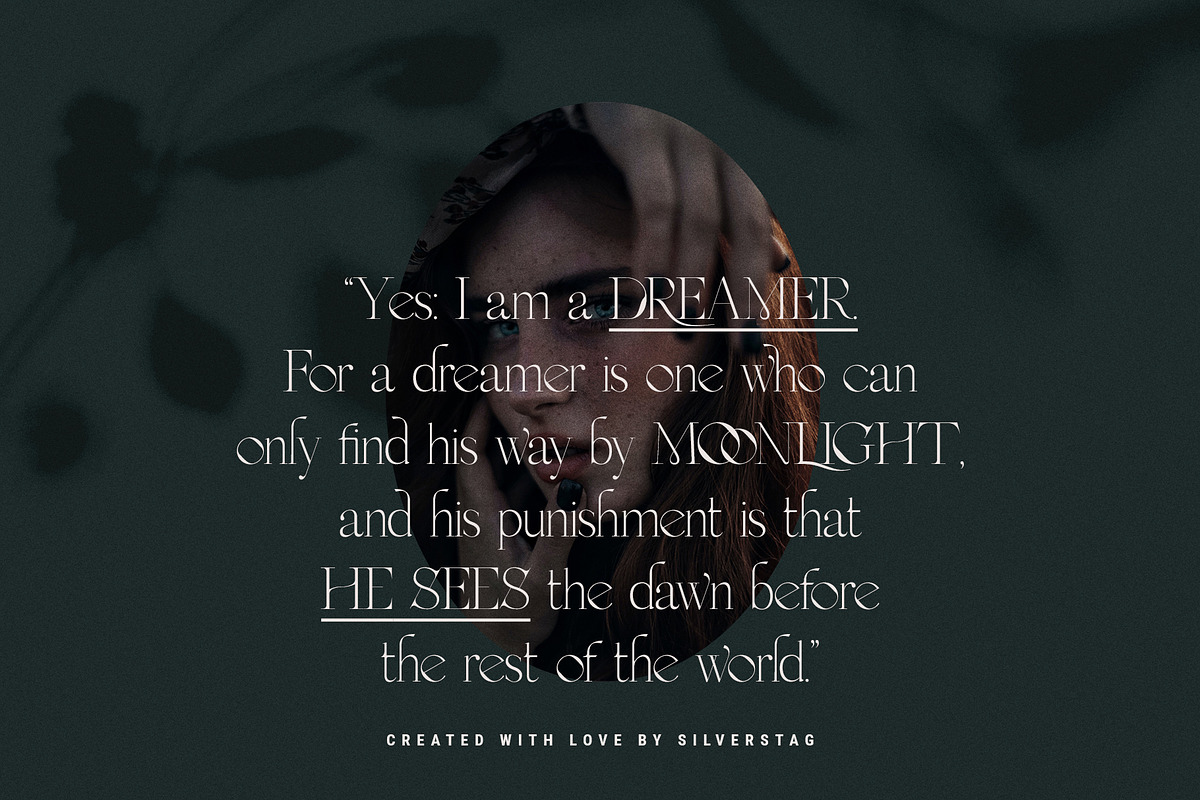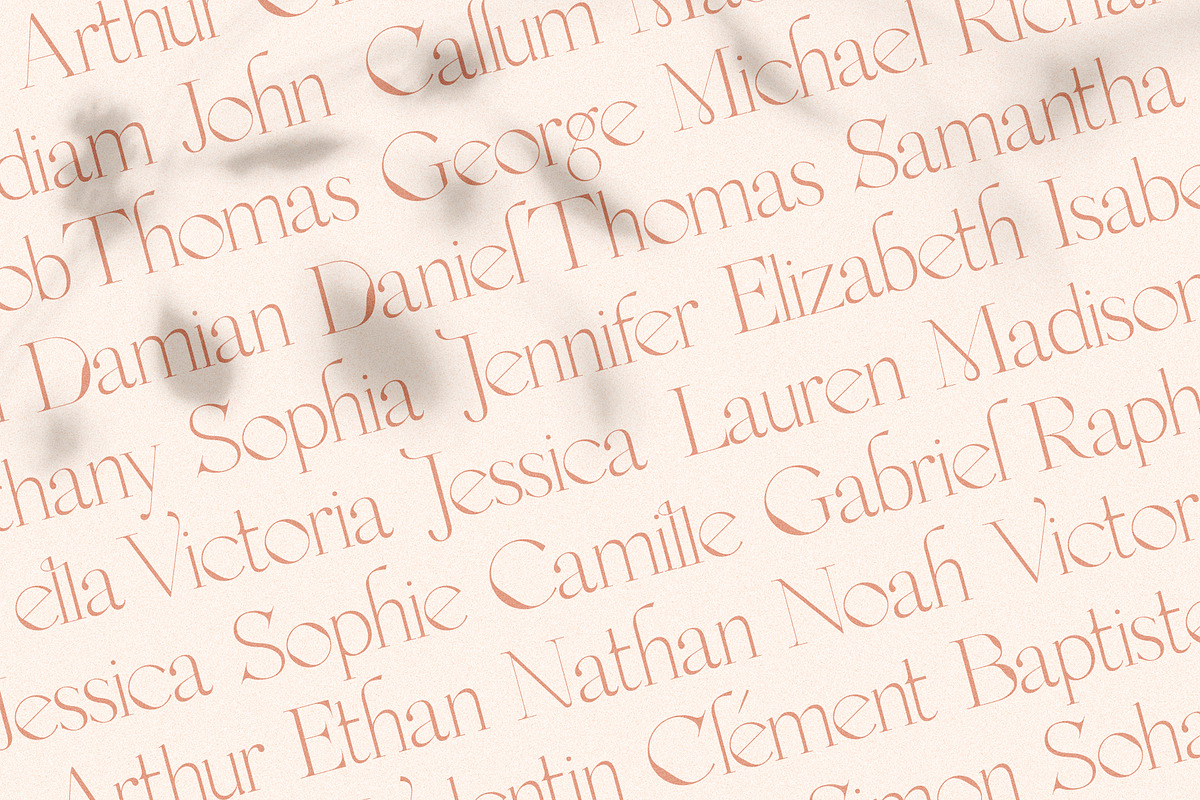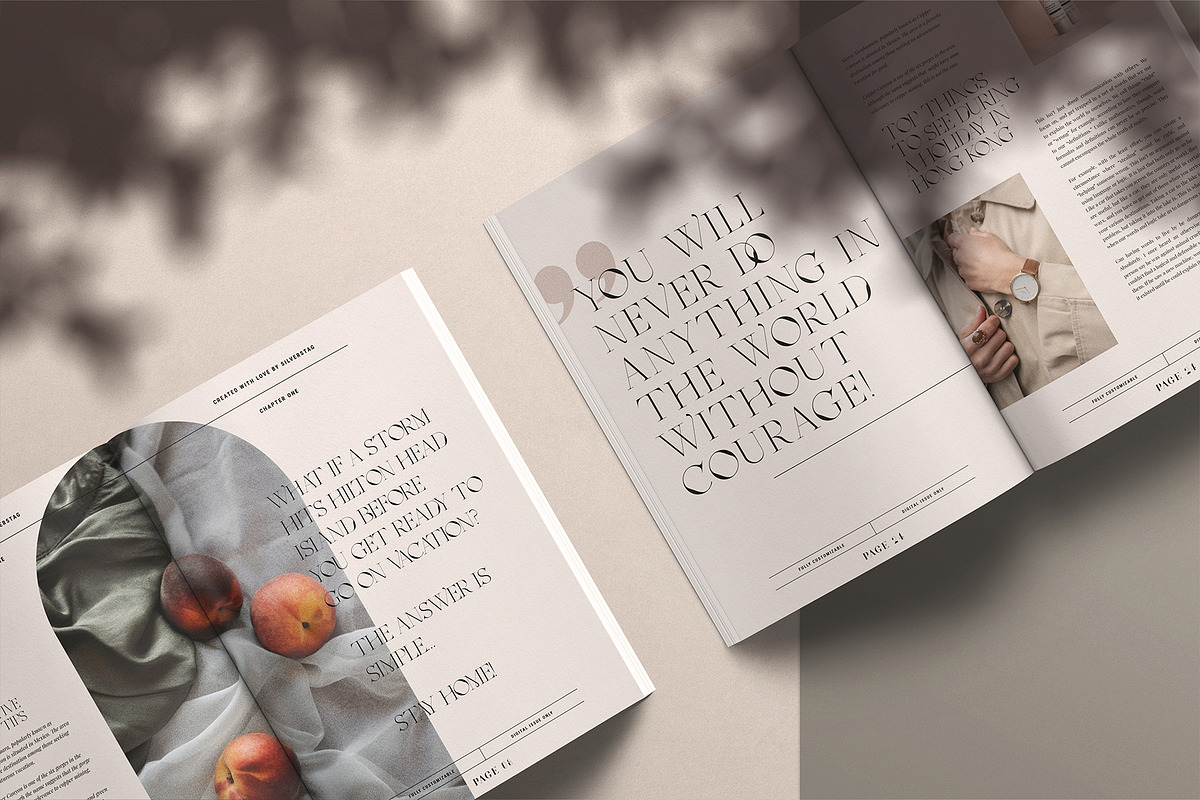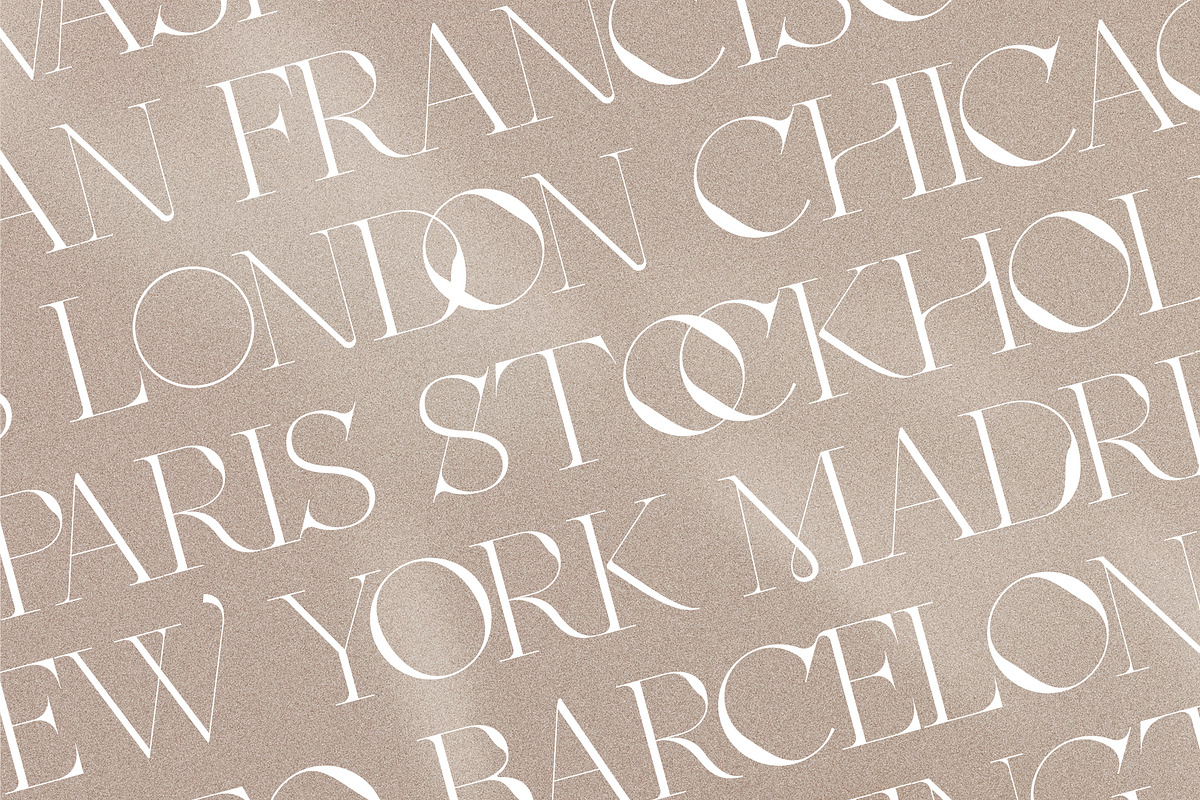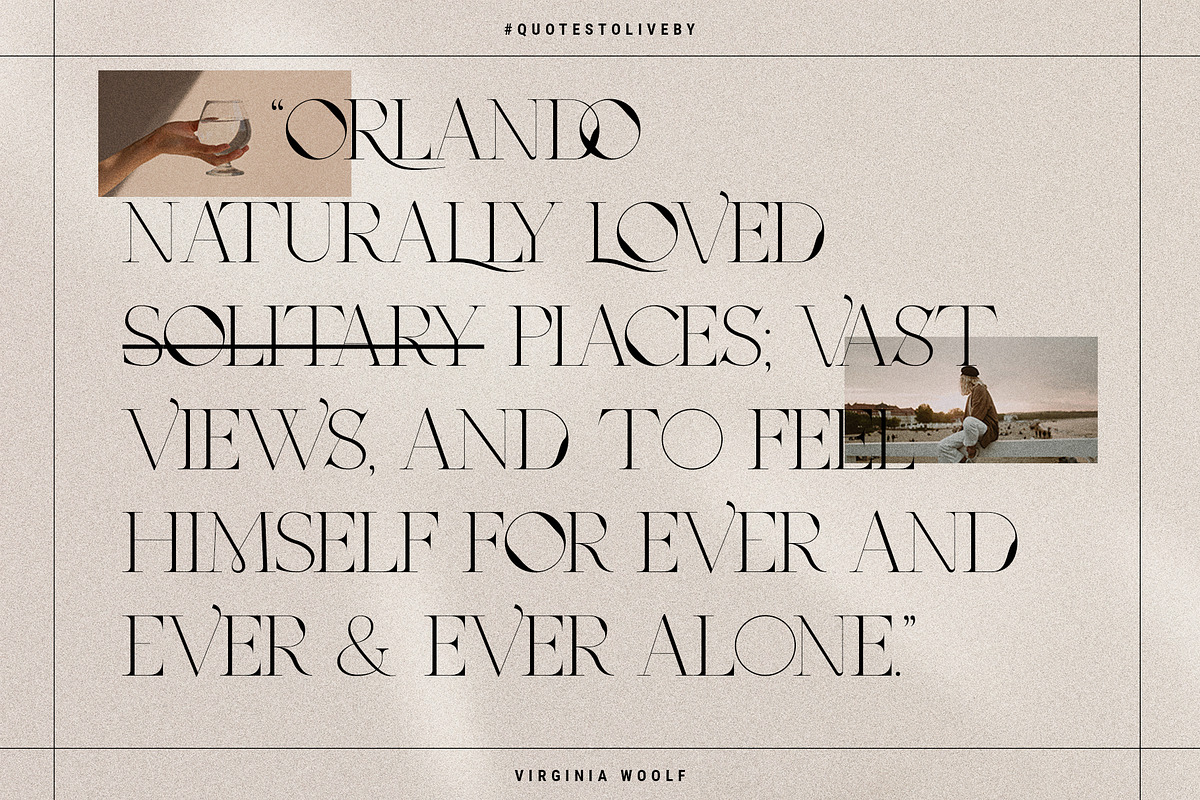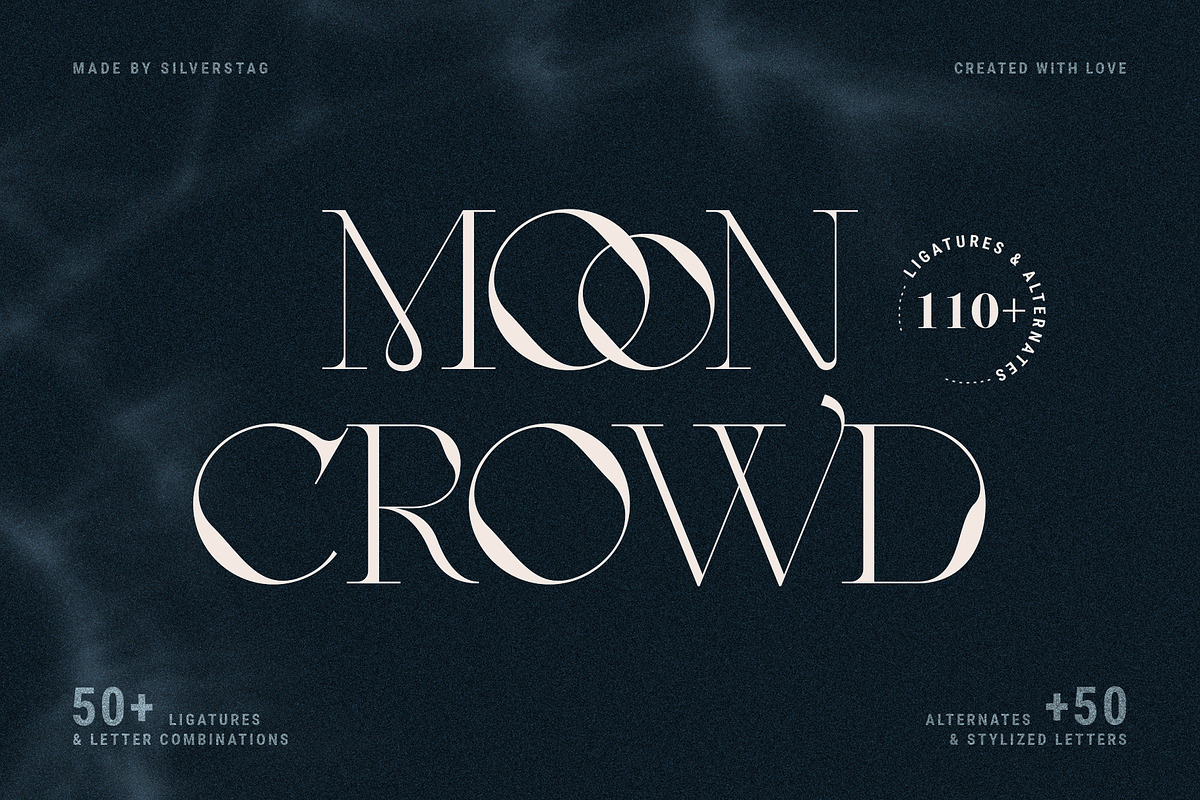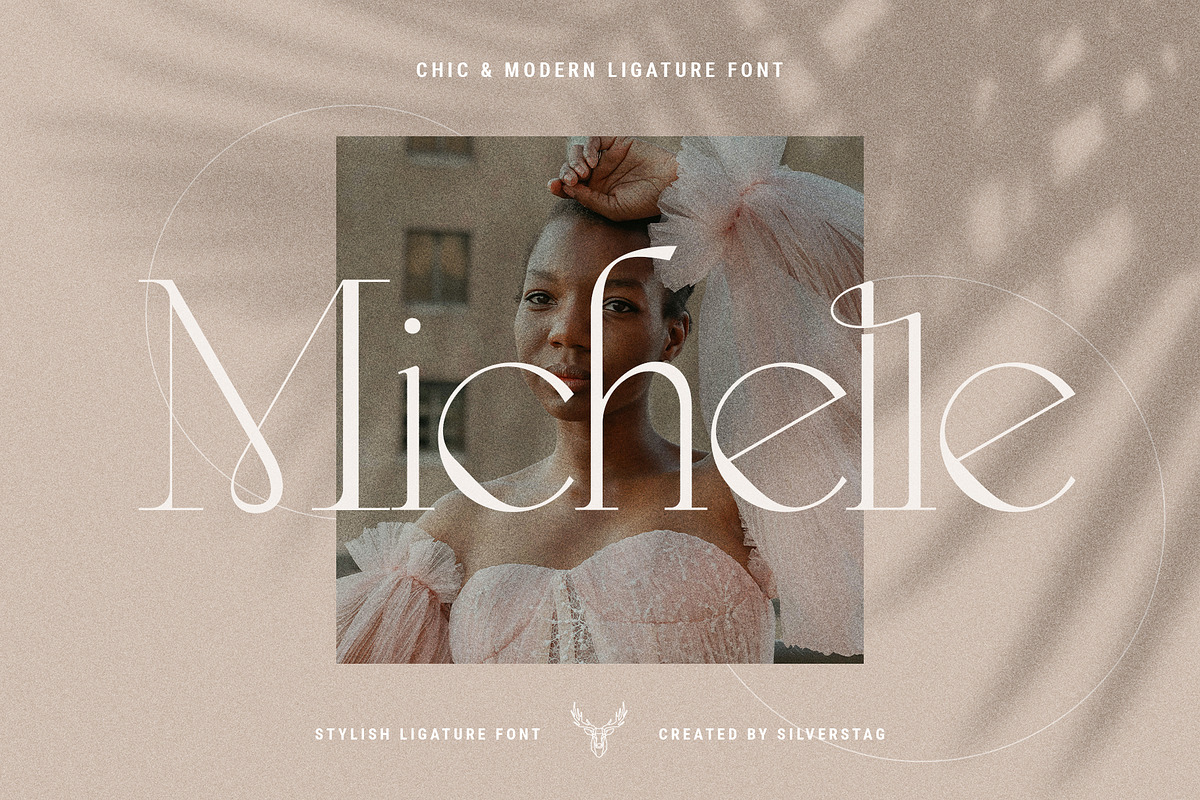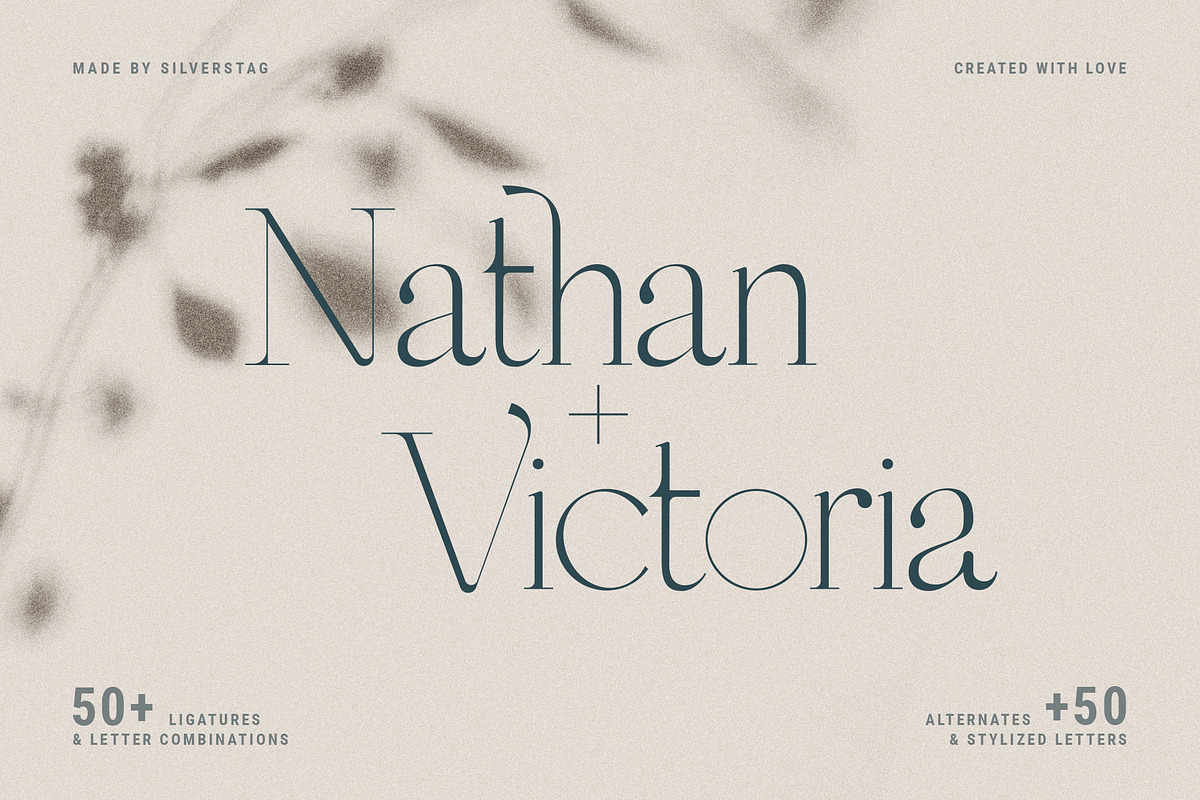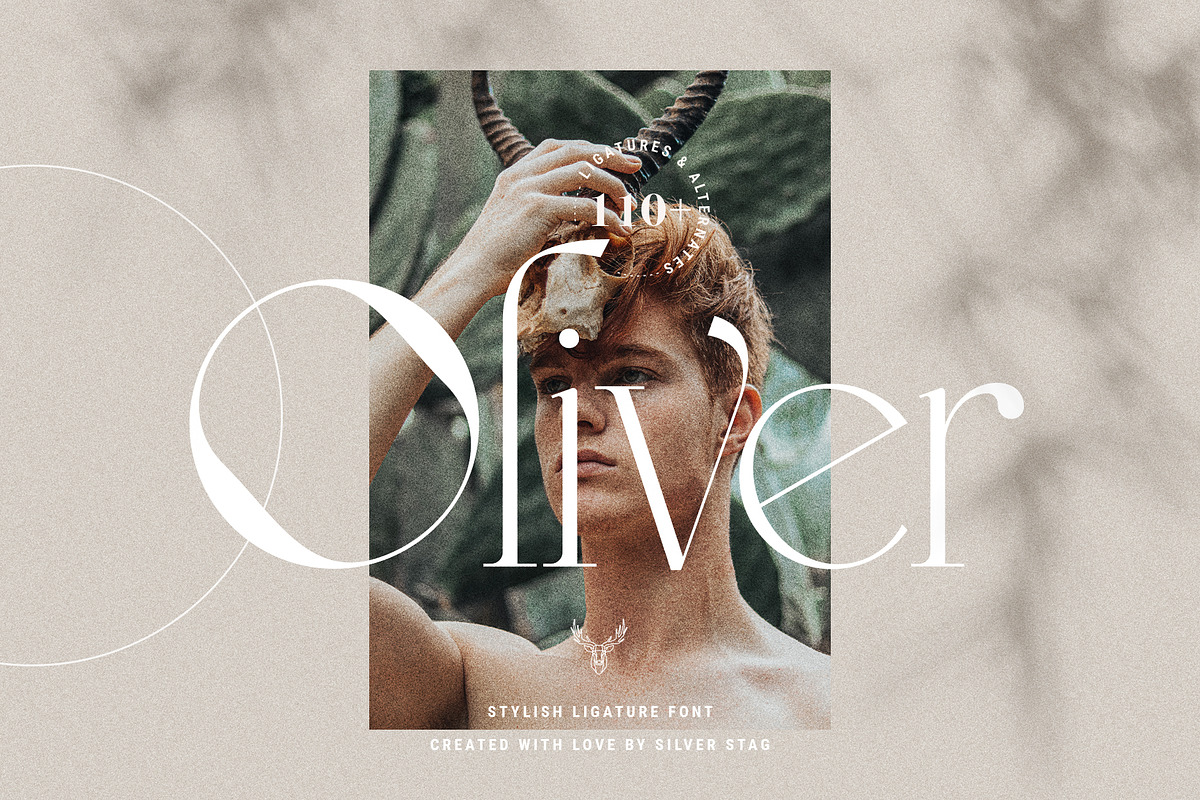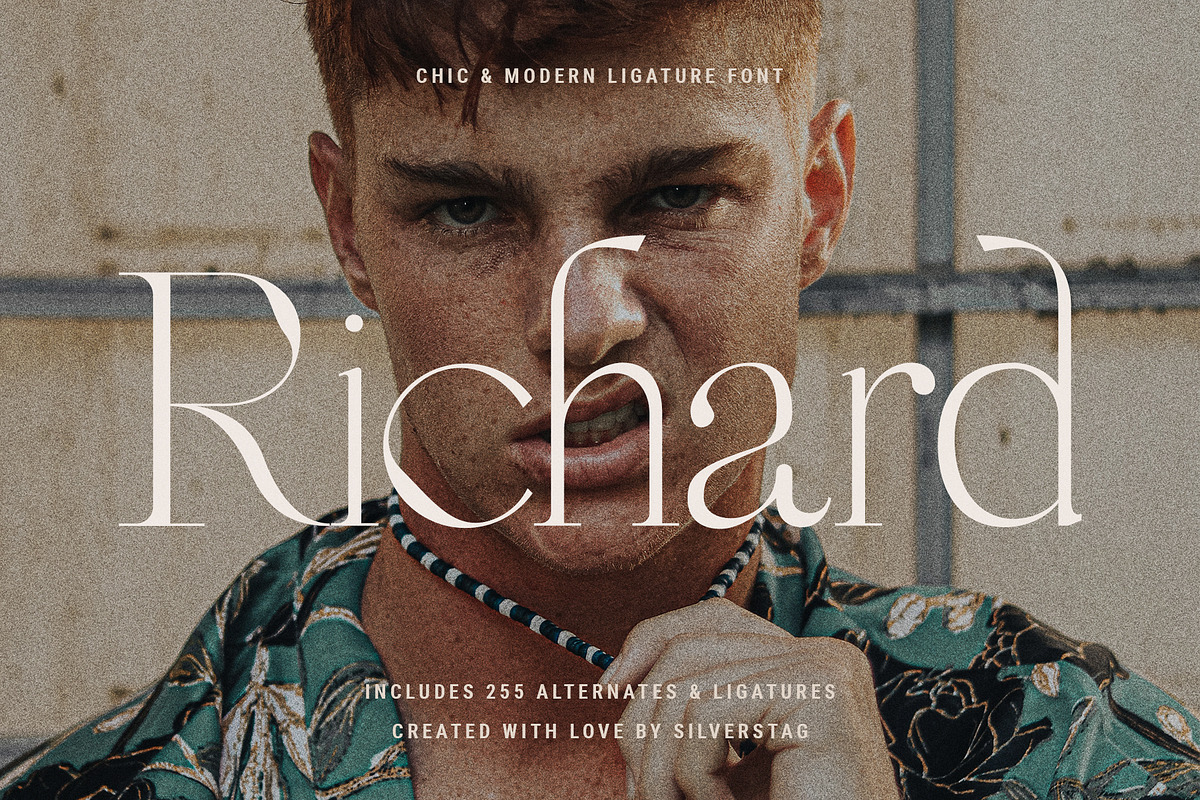
MOON CROWD - Elegant & Stylish Serif
Hey guys, I am really proud to give you MOON CROWD, a brand new ligature serif font inspired by unbeatable elegance and beauty of fashion! My new chic font comes with over 100 ligatures and alternate letters. Each of the standard letters, ligatures, and alternates was handcrafted and made to fit other letters without exception. All letters are 100% unique with soft rounded edges that will give you a different look than any other serif font.
So, whether you have a client that needs a new chic logo, or you're designing your social media posts. Maybe you're preparing your wedding mood board, stationery, invitations, MOON CROWD Ligature font is just perfect for all of that and more. Check out the photos I have prepared for you to see what you can do with it and happy creating!
- 90+ Ligatures & Alternate letters
- Lowercase and Uppercase letters
LANGUAGE SUPPORT:
The following letters are included: A À Á Â Ã Ä Å C Ç D Ð E È É Ê Ë I Ì Í Î Ï N Ñ O Ø Ò Ó Ô Õ Ö U Ù Ü Ú Û W Ẃ Ŵ ẄẀ Y Ý Ÿ Ỳ Ÿ Æ Œ ß Þ þ in uppercase and lowercase so the font supports a huge number of languages.